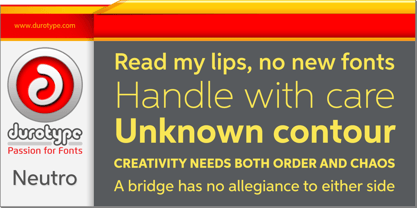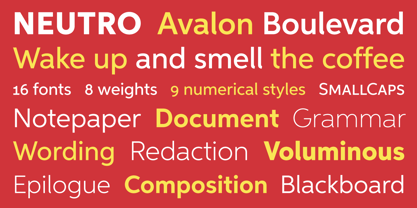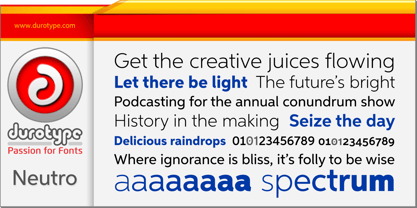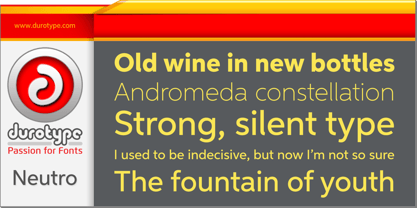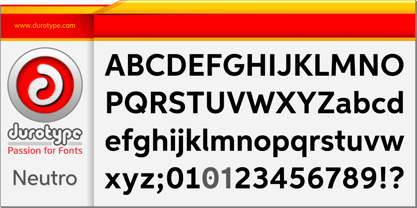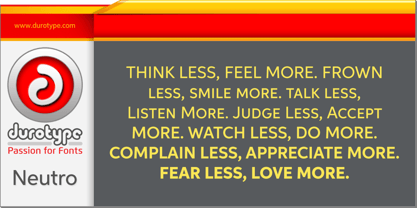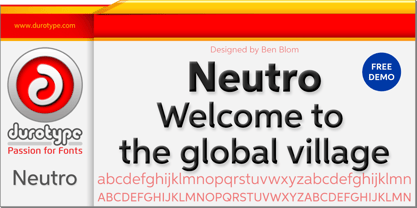
Neutro Font
Neutro Font is perfect for minimalist branding, clean web design, neutral corporate identities, balanced marketing materials, versatile app interfaces, objective editorial layouts, impartial business communications, flexible packaging design, universal signage systems, and adaptable digital platforms.
What makes Neutro Font so exciting is its perfect neutrality that provides exceptional versatility without imposing stylistic bias, creating typography that adapts seamlessly to any design context while maintaining professional excellence. This balanced typeface embodies design objectivity and universal functionality, delivering visual communication that works harmoniously across diverse applications and audiences.
The Neutro Font family includes thin, light, regular, medium, bold, and black weights, complete with matching italics and neutral design features that provide designers with comprehensive tools for creating balanced and memorable typography that serves as the perfect foundation for any design concept.
The carefully balanced letterforms of Neutro Font showcase neutral elegance with universal character that creates instant recognition of professional quality and design objectivity. Each character displays meticulous attention to maintaining the perfect neutrality that defines universal appeal while ensuring superior readability and professional versatility. The font's balanced construction and neutral spacing contribute to its adaptable appearance and universal functionality.
Versatile brands and design-conscious organizations consistently choose Neutro Font for projects requiring neutral sophistication and universal appeal. The comprehensive character set includes uppercase and lowercase letters, numerals, extensive punctuation, international accents, and neutral design elements that provide complete support for adaptable branding applications and universal design compositions.
The universal versatility of Neutro Font ensures exceptional performance across both traditional print and modern digital platforms. Whether developing flexible brand identities, creating neutral marketing materials, or designing adaptable interface systems, this remarkable typeface delivers consistent balance that works harmoniously with any design concept or brand personality.